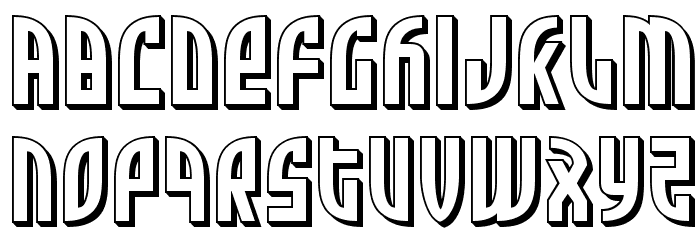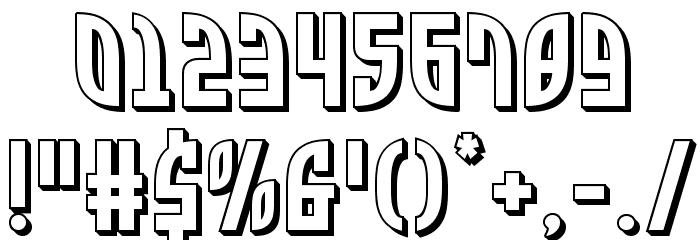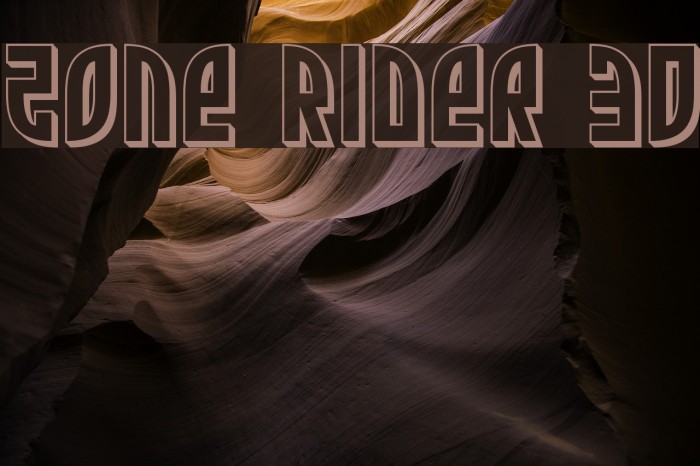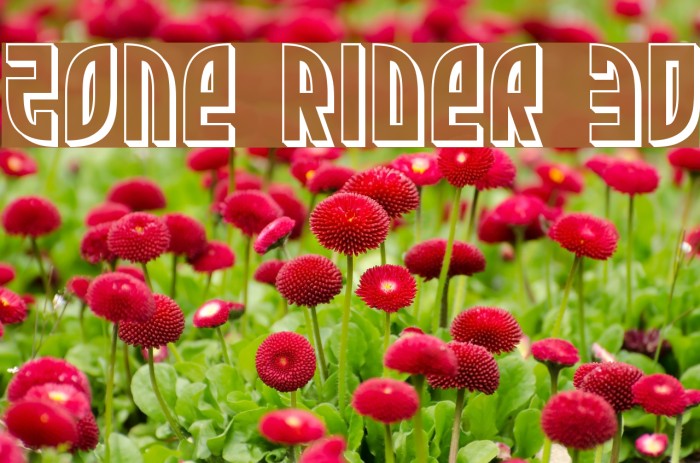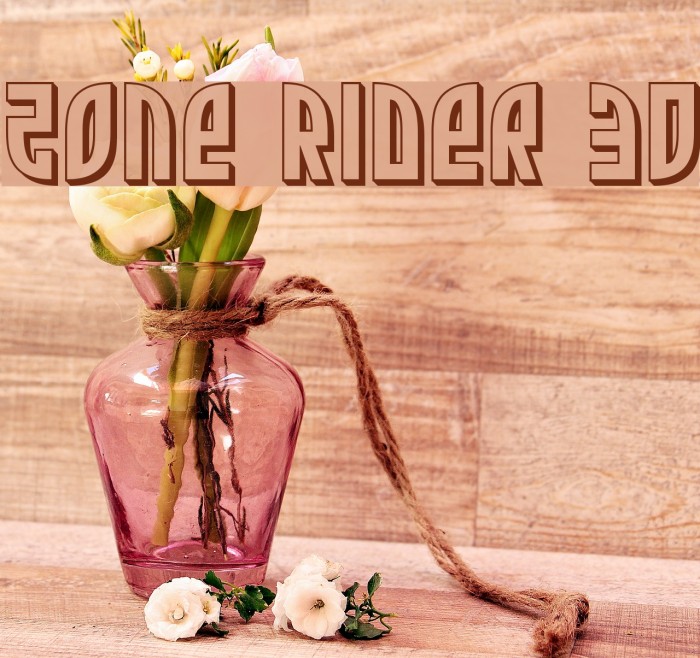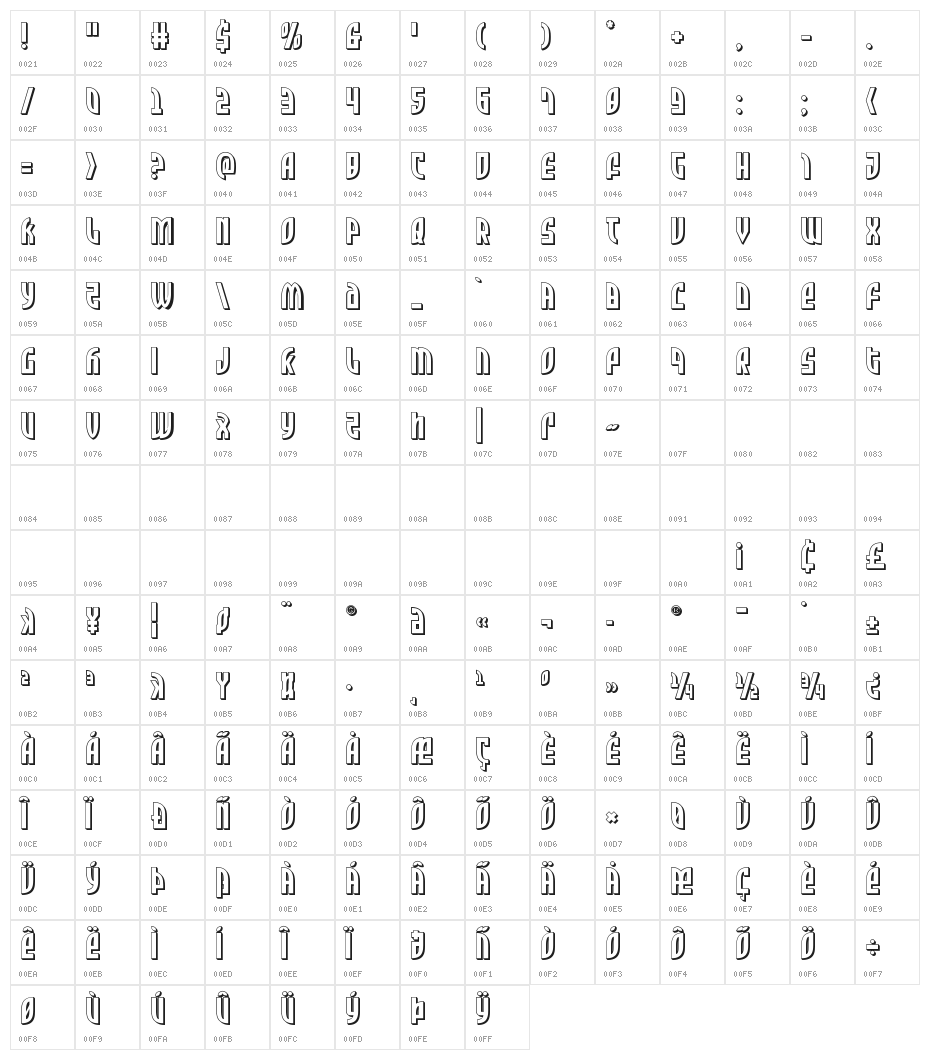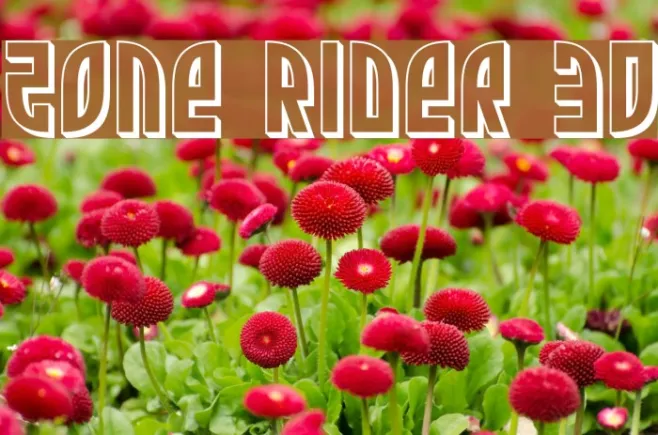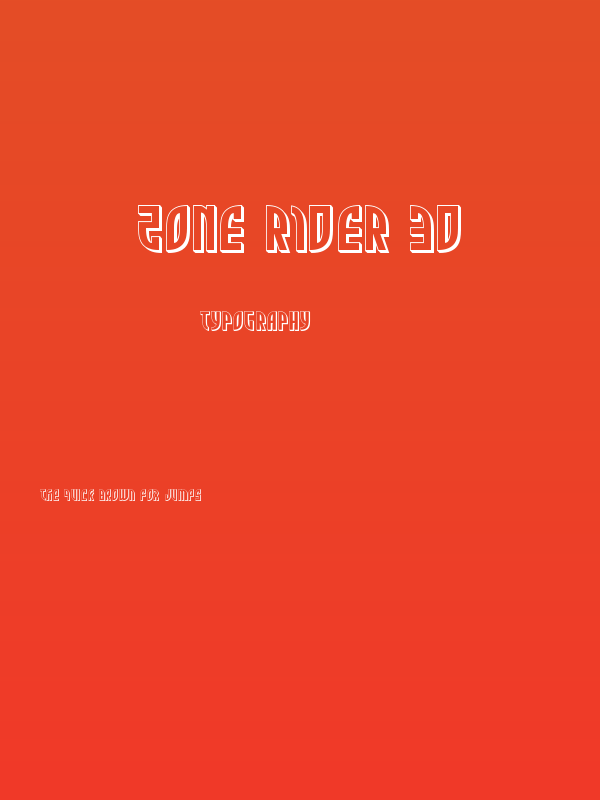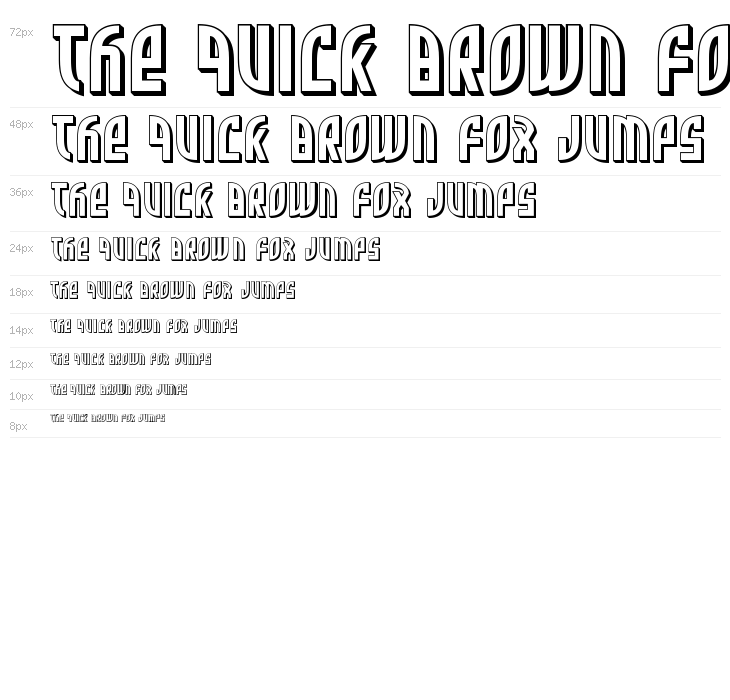
Zone Rider 3D Font
This font features a bold, three-dimensional appearance with a futuristic and geometric style. The characters are outlined with a thick black border, giving them a strong presence. The design incorporates sharp angles and straight lines, creating a sense of movement and depth. The uppercase and lowercase letters maintain a consistent style, while the numerals and special characters complement the overall aesthetic. This font is ideal for projects that require a modern and dynamic look, such as video game titles, tech branding, or sci-fi themed designs.
A bold, 3D geometric font with a futuristic style.
- Proposed Projects: Ideal for video game titles, tech branding, sci-fi themes, and dynamic posters.